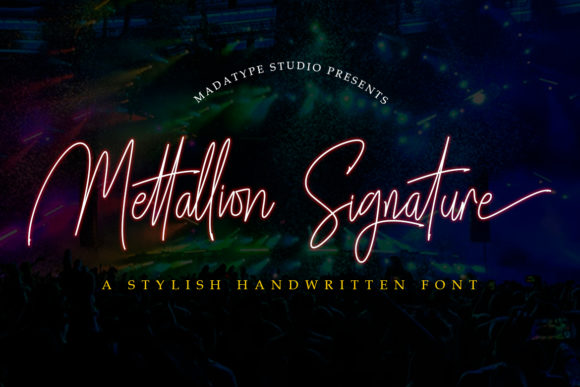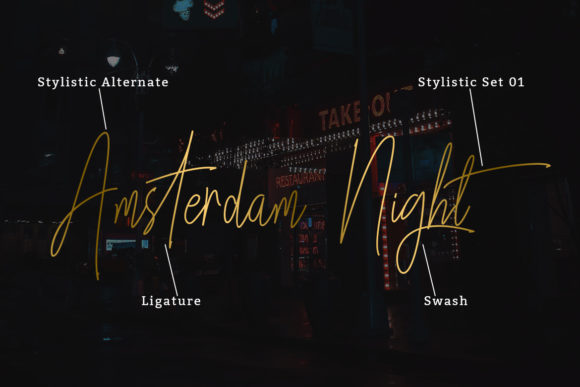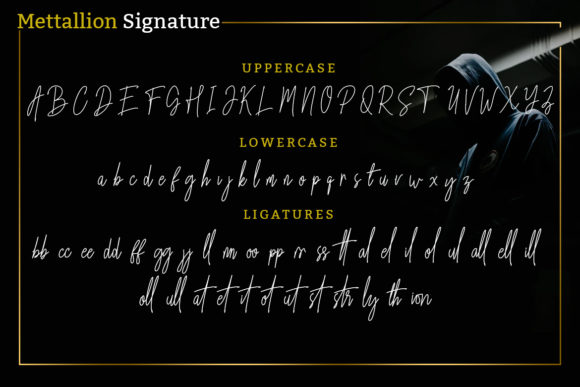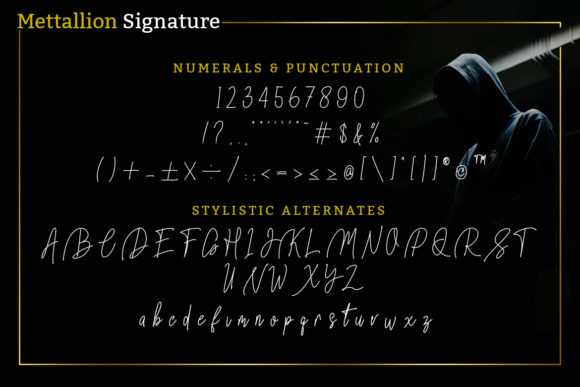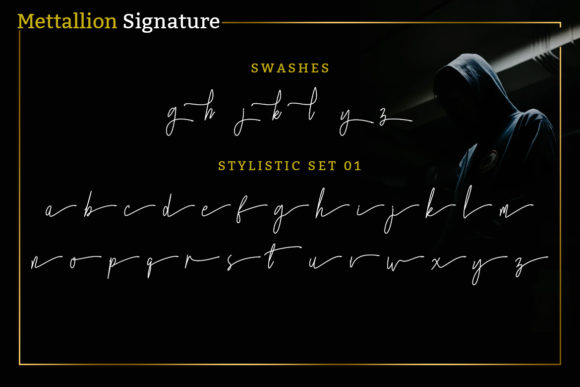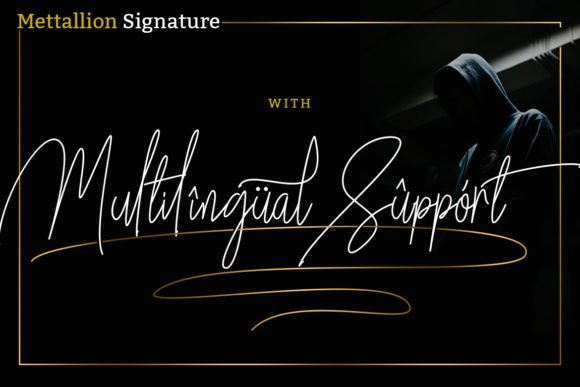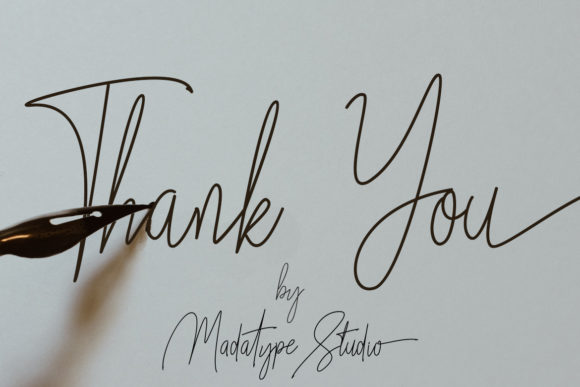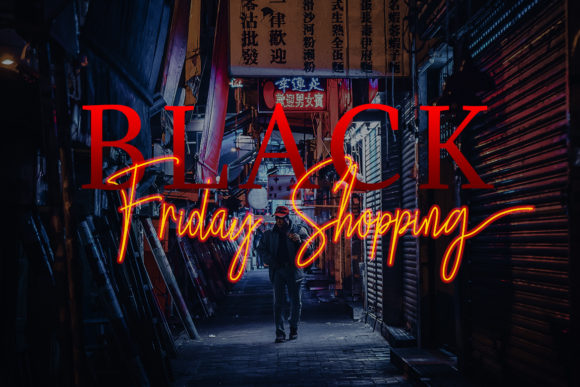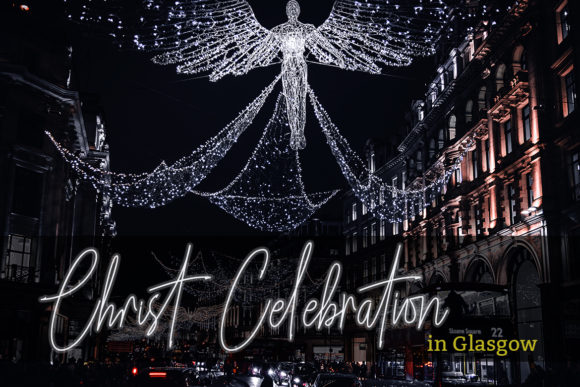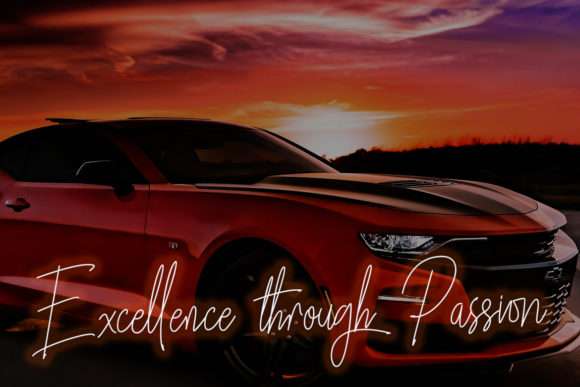
Mettallion Font
About Mettallion Font
Mettallion Signature is a stylish handwritten font that features dozens of stunning ligatures and alternates. It is perfect for any design in need of a natural and stylish handwritten feel.